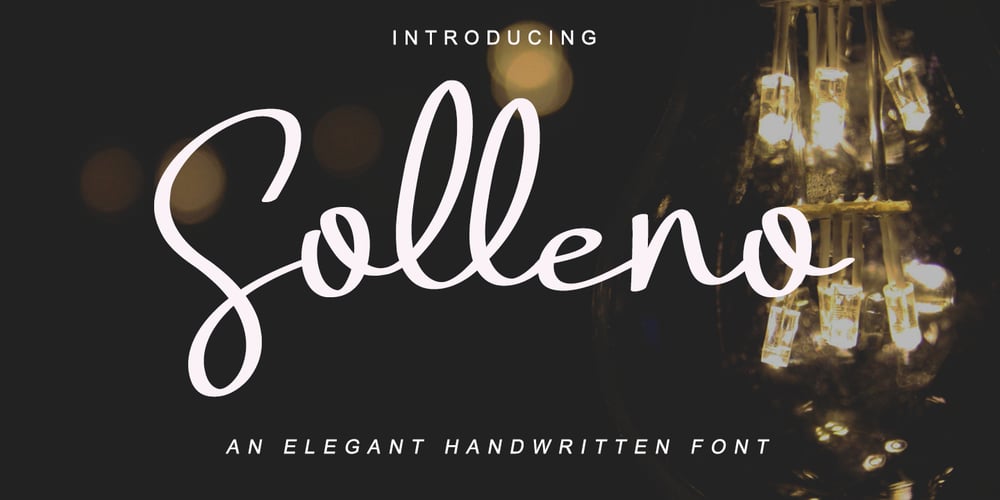
Solleno Font Family was designed by Agung Eko Nugroho and published by AEN Creative Studio. Solleno contains 1 styles and family package options. Solleno is a great font for your projects. It’s an elegant script font that carries a personal look & feel. Get inspired by its unique charm, and turn any design idea into a true standout.